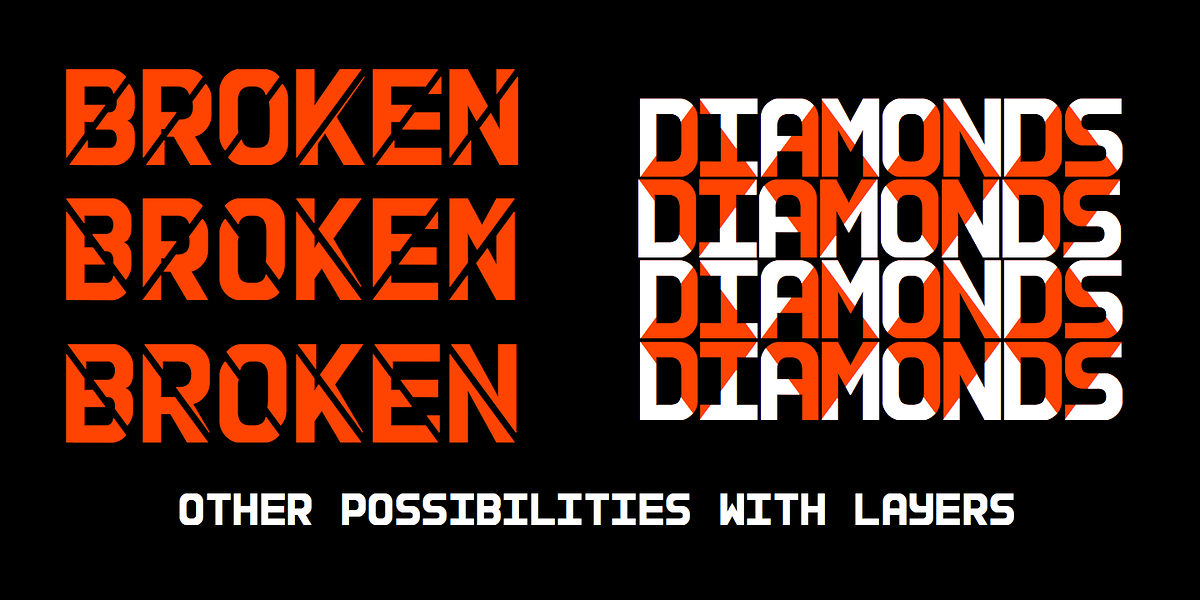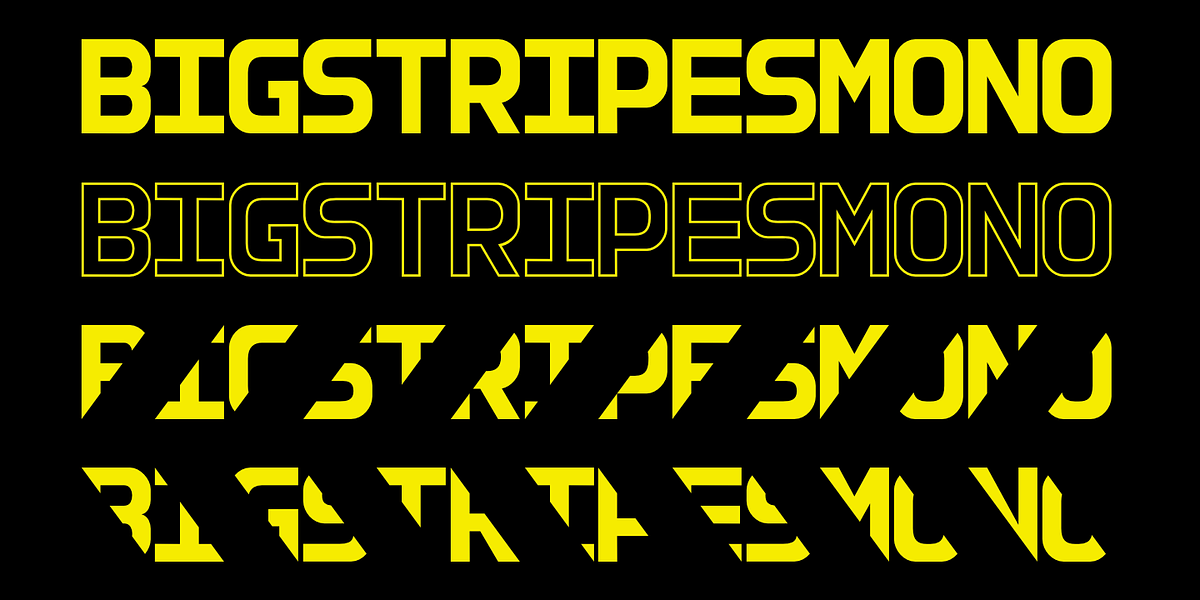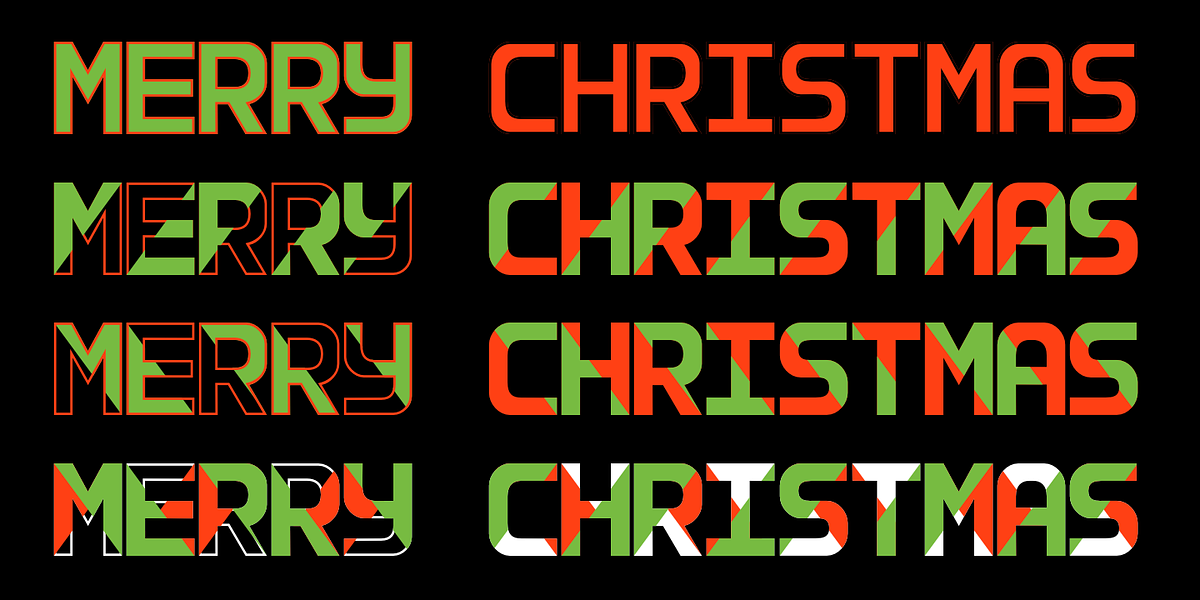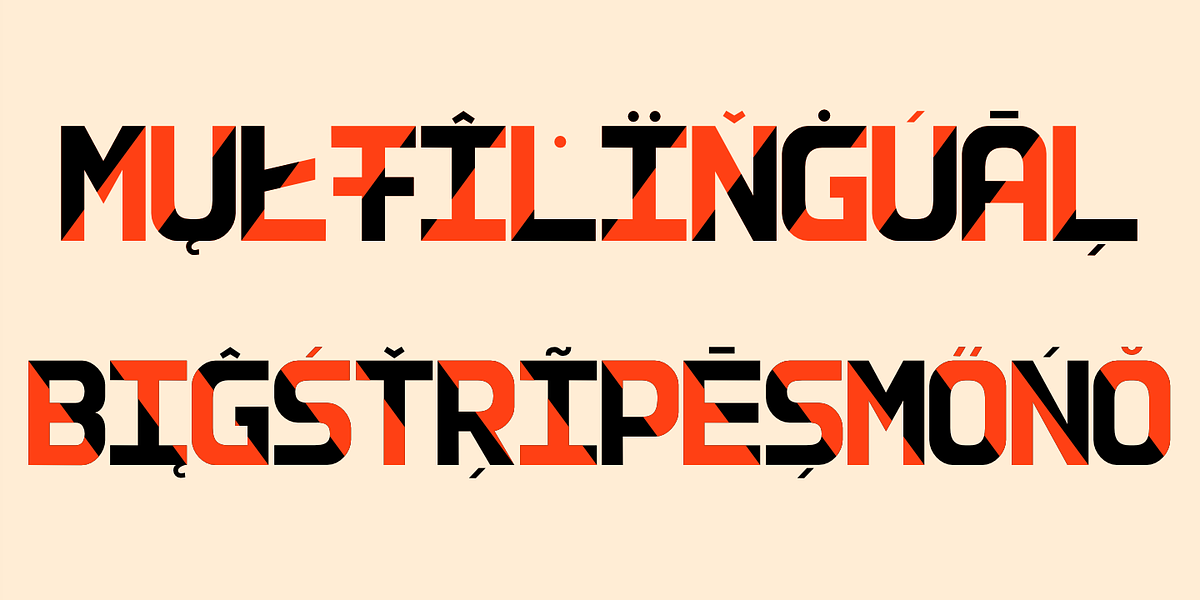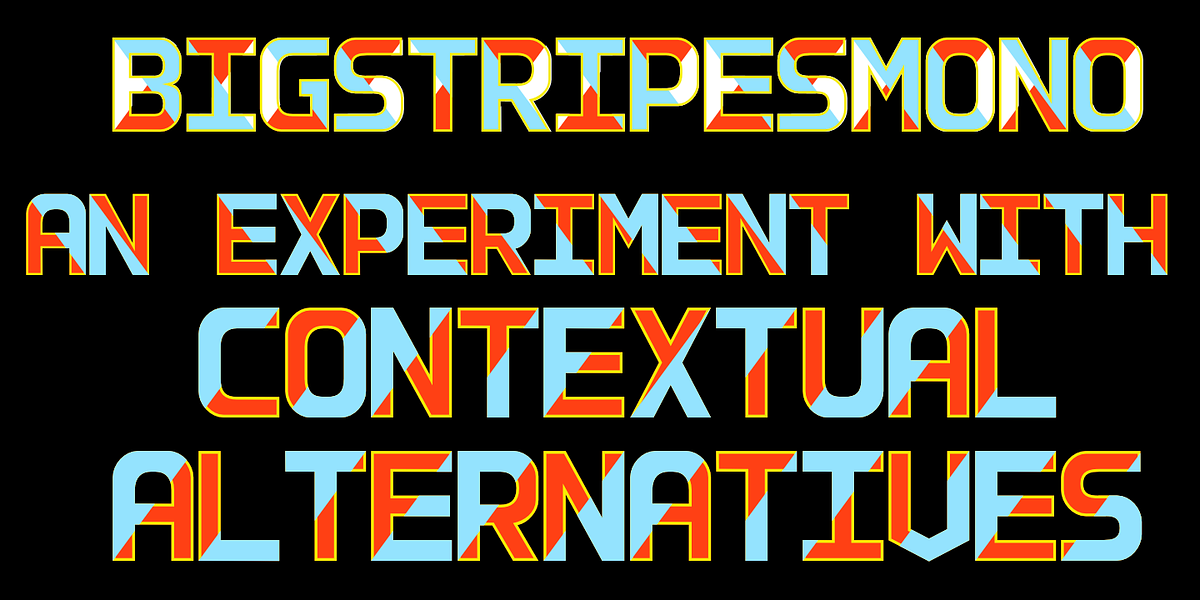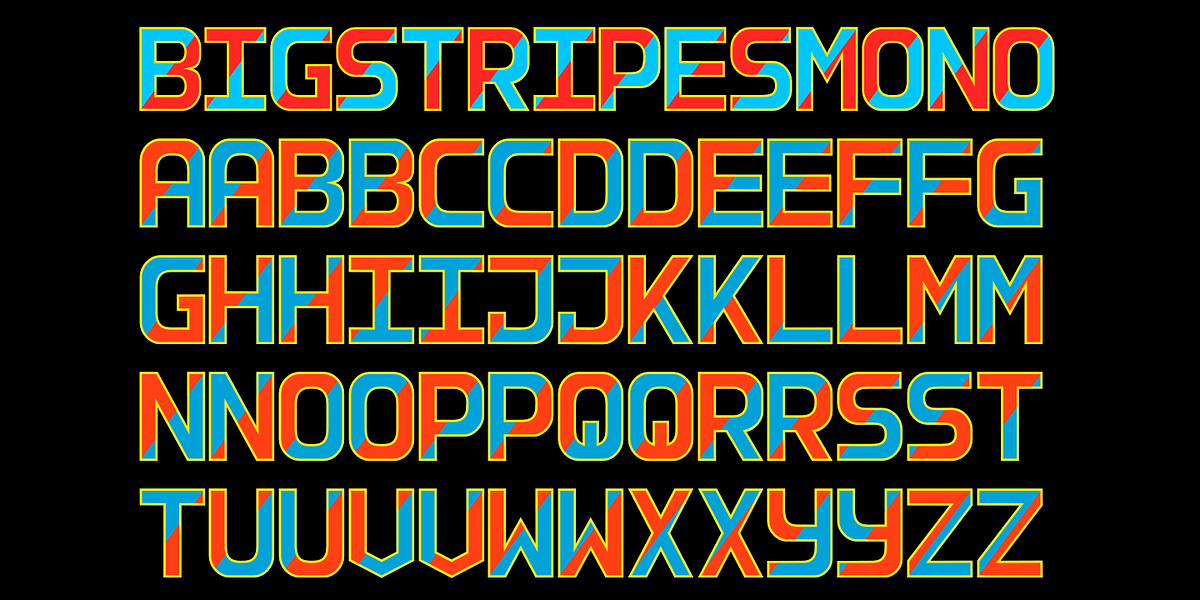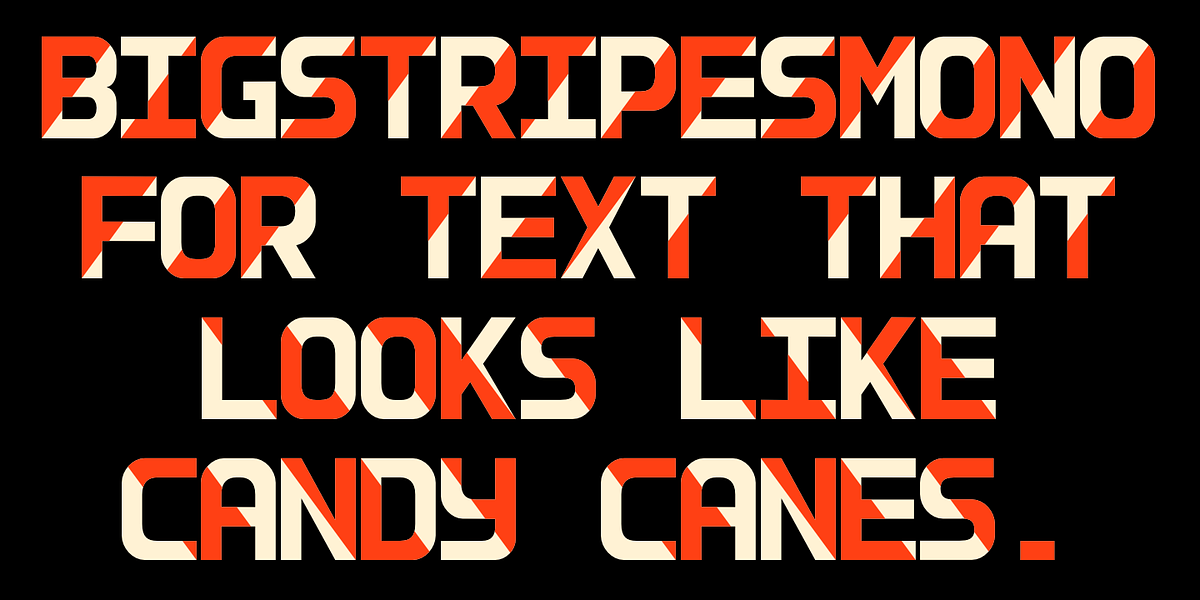
BigStripesMono
BigStripesMono is a geometric sans-serif typeface family designed for eye-catching display uses. Its key feature is the ability to combine four distinct styles – base, outlined, and two split styles – to create layered lettering with a striped appearance. The split styles are intended to be overlaid on the base or outlined styles, resulting in unique color combinations. This font requires an application that supports OpenType's Contextual Alternatives feature (calt) for optimal use.